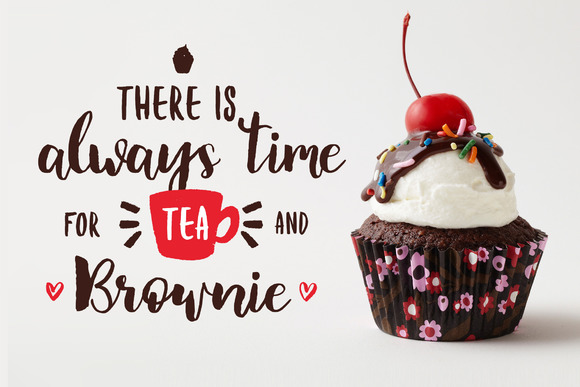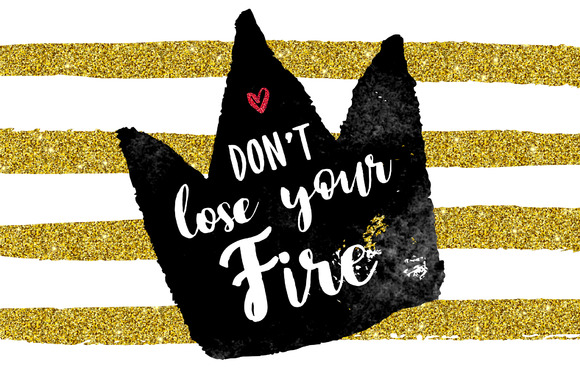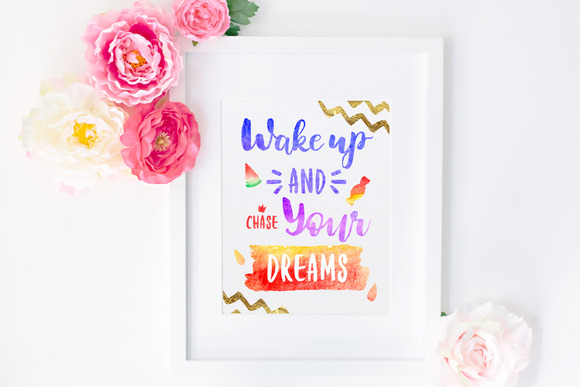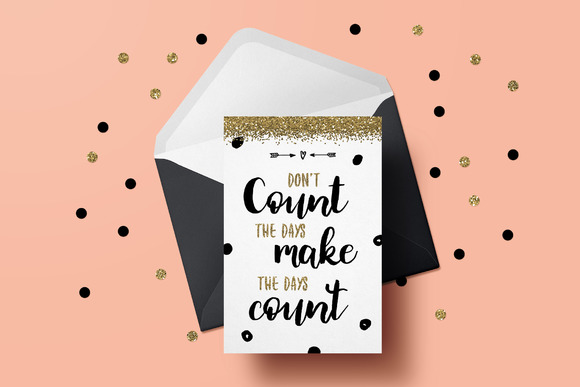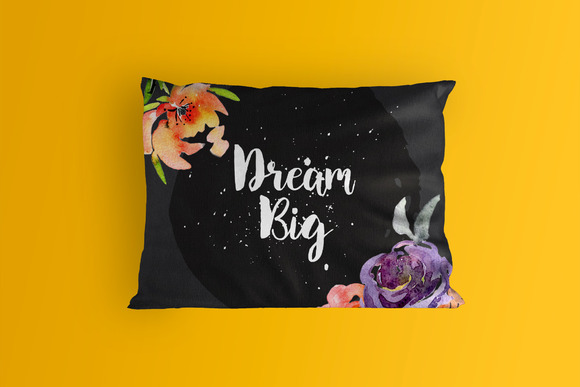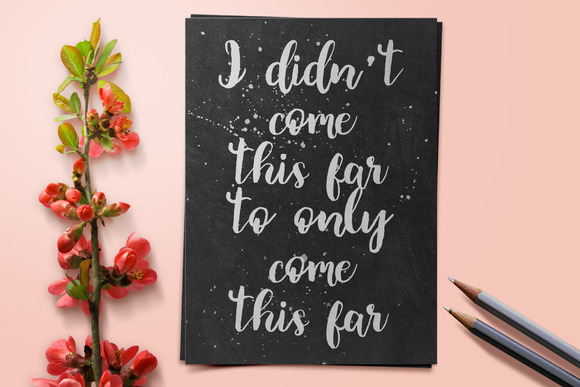
Unleash Your Creativity with the Brownie Font
Have you ever found yourself staring at a blank canvas, searching for the perfect words to bring your creative vision to life? You know the feeling – the one where every font seems to fall short of capturing the playful, whimsical essence of your idea.
That’s where the Brownie Font comes in – a hand-lettered gem created by the talented Kavoon. This charming font is designed to add a personal touch to any project, from elegant invitations to fun kids’ party decorations. With its smooth, flowing lines, the Brownie Font is the perfect choice for designers who want to infuse their work with a sense of warmth and personality.
Whether you’re a seasoned pro or just starting out, the Brownie Font is an invaluable tool in your creative arsenal. Its versatility and charm make it a must-have for any project that needs a little extra something special.
Brownie Font Key Features
- Unique Characteristics: The font features a unique, handwritten style with a warm and inviting tone, making it suitable for creative and artistic designs.
- Font Style: The font comes in a single style, but it offers various ligatures and swashes, allowing designers to add a touch of personality to their designs.
Brownie Font Review
I recently had the chance to work with the Brownie Font, and I must say it’s a unique and interesting addition to any design project. Here are some of my thoughts on what works well and what could be improved.
- Unique Character Set: The Brownie Font has a distinct and recognizable character set that adds a personal touch to any design.
- Playful Feel: The font’s playful feel makes it perfect for creative projects, such as children’s books, websites, and social media graphics.
- Customization Options: The font offers a range of customization options, including bold and italic styles, to help you achieve the desired look.
- Readability Issues: In some cases, the font’s unique character set can lead to readability issues, especially in smaller font sizes.
- Limited Professional Use: The font’s playful feel may not be suitable for more formal or professional projects, such as corporate reports or academic papers.
- Lack of Consistency: The font’s character set may not be consistent across all operating systems and devices, which can lead to inconsistencies in the design.
Overall, the Brownie Font is a great addition to any design project that requires a playful and creative touch. While it may have some limitations, it’s a fun and unique font that can help you stand out from the crowd.
The Brownie font is commonly used for:
- Food and beverage branding
- Wedding and event invitations
- Custom graphics and logos
- Visually appealing presentations and documents